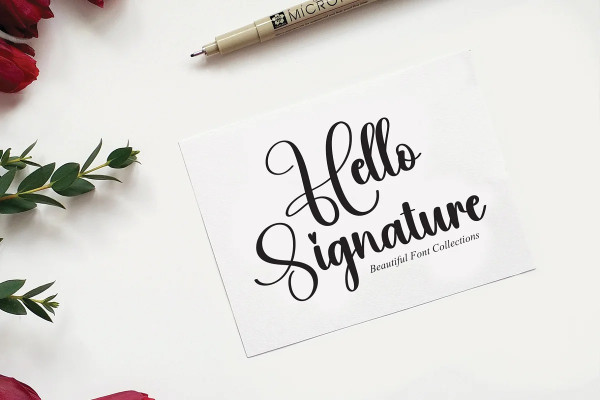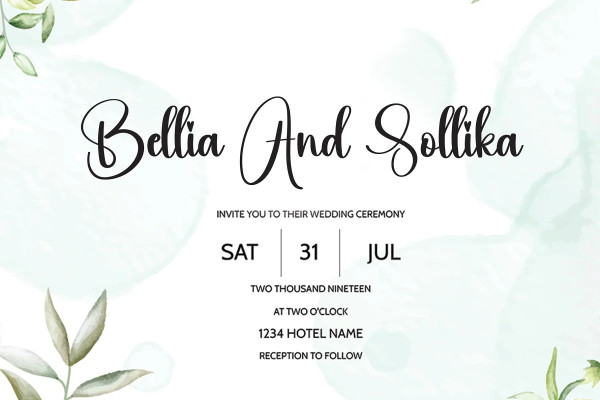
Alive Script Font
Alive Script Font, a popular and professional script font. Modern and elegant, this typeface is made of beautiful creative strokes. This font is perfect for your creative ideas, both formal and informal. It has a modern style with a touch of creative ideas that is very suitable to be applied anywhere that requires creative ideas such as invitation cards, letterheads, website logos, social media, banners, advertisements, brochures, packaging products, leather products, and any product that requires writing.
By using this font, all of your products will look luxurious, elegant, and attractive, please try and see the results.
Alive ScriptFont  includes a complete set of beautiful upper and lowercase letters, numbers, a wide variety of punctuation marks, and ligatures. All lowercase letters include a start and end, providing a realistic style. everything you get.